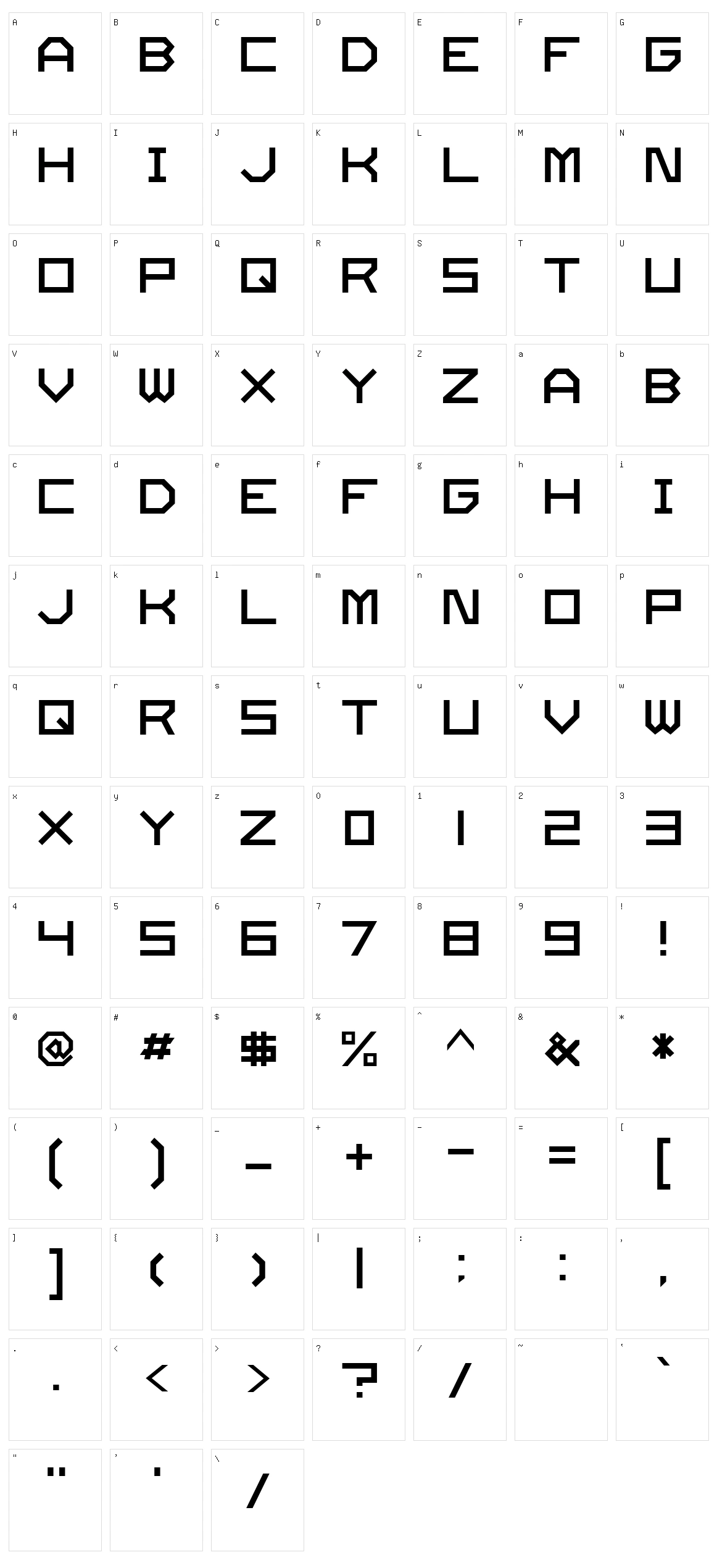
The free font Twode.no is carefully designed by Daniel Dahn, showcasing a thoughtful balance of creativity and usability and falls under the Square font style. When you download the ZIP file, it contains only 13.3 KB of font files, making it lightweight and quick to download. Please review the license details below to understand permitted usage and distribution rights. If license information is not available, we recommend using this font for personal projects only or contacting the author directly for commercial usage permissions.